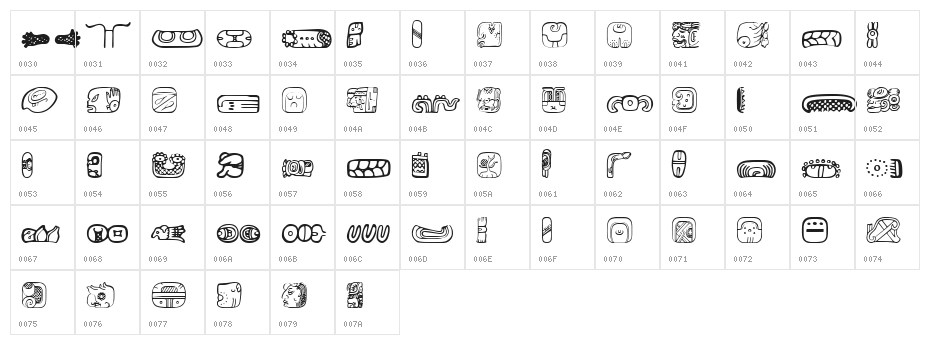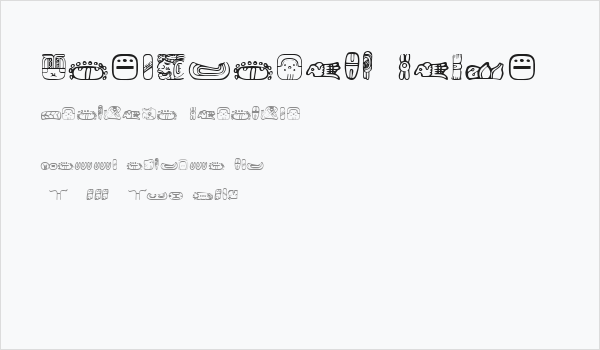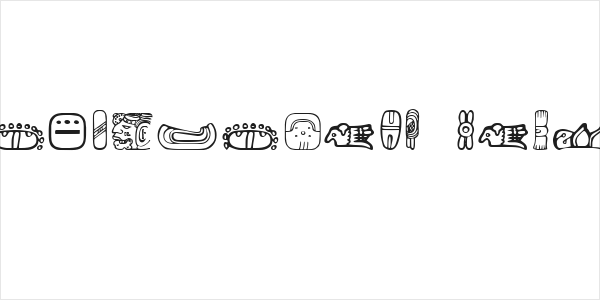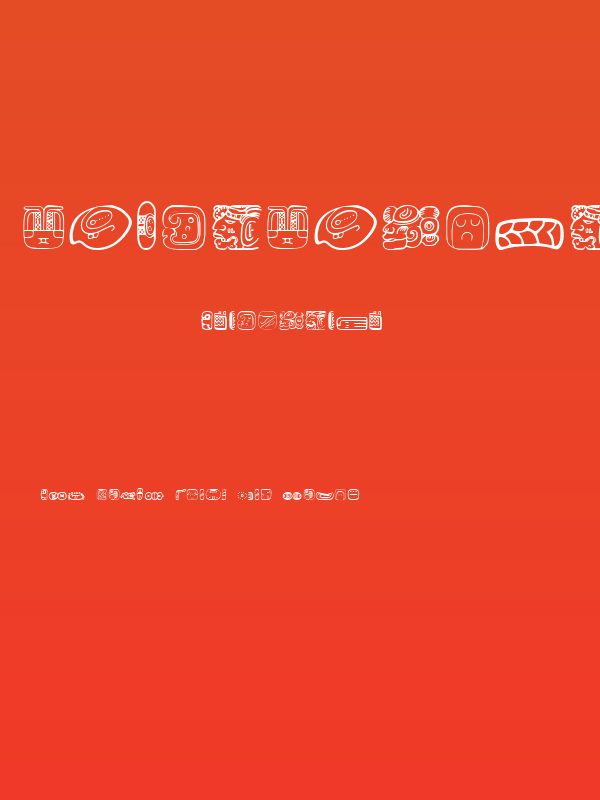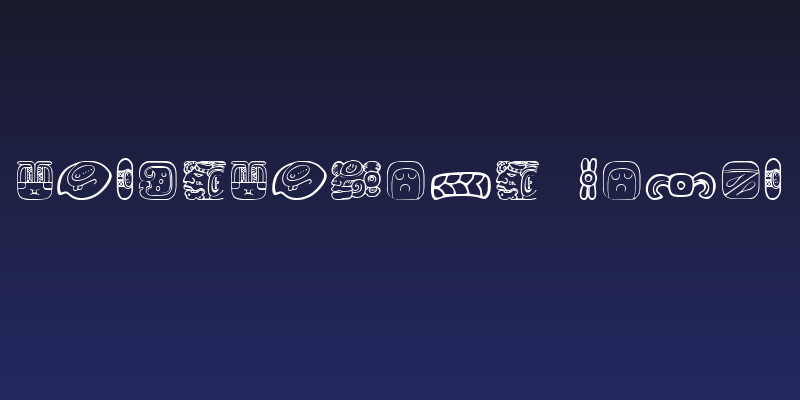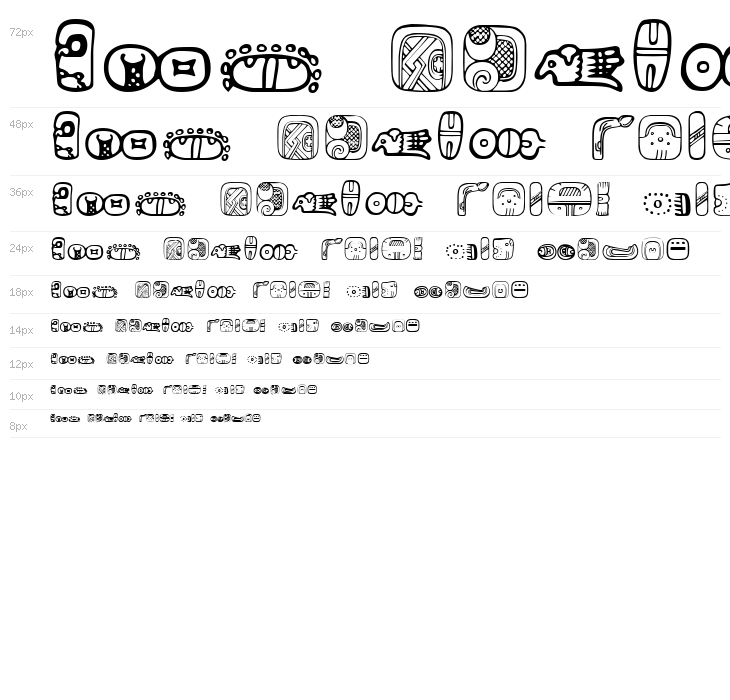
MesoAmerica Dings Font
MesoAmerica Dings Description
This font is a collection of intricate and detailed glyphs inspired by Mesoamerican iconography. Each character is a unique representation of ancient symbols, featuring complex patterns and shapes that evoke the rich cultural heritage of Mesoamerica. The designs are bold and striking, with a strong emphasis on line work and geometric forms. The characters vary in complexity, with some featuring dense detailing and others showcasing more open spaces. This font captures the essence of ancient artistry, making it a distinctive choice for projects that require a historical or cultural touch.
Use CaseLogos, Posters, Artistic projects
Proposed ProjectsIdeal for cultural exhibitions, historical documentaries, themed event posters, or educational materials about ancient civilizations.